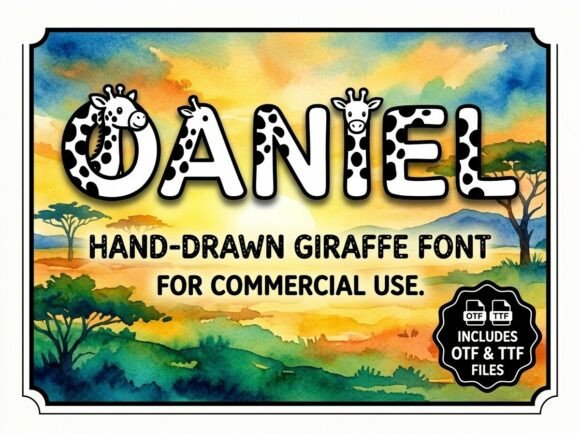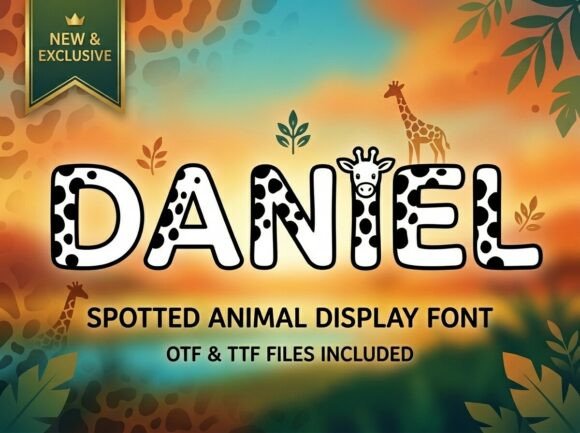
Introducing Daniel Font: A Stunning Decorative Display Font
Are you tired of using the same old fonts for your designs? Do you want to add a touch of uniqueness and creativity to your projects? Look no further than Daniel Font, a breathtaking decorative display font that’s designed to be the center of attention. With its artistic elements and strong visual personality, this font is perfect for creators who want to break away from the ordinary and make a statement.
What Makes Daniel Font Special?
Daniel Font is a versatile font that’s specifically designed for bold headlines, artistic logos, and creative packaging. Its unique artistic elements and strong visual personality make it perfect for projects that require a professional and polished finish. Whether you’re a designer, craftsperson, or DIY enthusiast, this font is sure to elevate your work and make it stand out from the crowd.
Key Features of Daniel Font
- Unique Artistic Elements: Daniel Font features unique artistic elements that set it apart from other fonts. Each letter is carefully crafted to make a statement and add a touch of creativity to your designs.
- Strong Visual Personality: This font has a strong visual personality that’s perfect for bold headlines, artistic logos, and creative packaging.
- Versatile: Daniel Font is versatile enough to be used for a variety of projects, from professional designs to DIY crafts.
- Professional and Polished Finish: This font maintains a professional and polished finish, making it perfect for projects that require a high level of sophistication.
Who is Daniel Font For?
Daniel Font is perfect for:
- Designers: Graphic designers, branding experts, and advertising professionals who want to add a touch of creativity to their designs.
- Crafters: DIY enthusiasts, craftspersons, and makers who want to add a professional and polished finish to their projects.
- Entrepreneurs: Small business owners and entrepreneurs who want to create a strong brand identity and stand out from the competition.
How to Use Daniel Font
Daniel Font can be used for a variety of projects, including:
- Headlines and Titles: Use Daniel Font to create bold and eye-catching headlines and titles for your designs.
- Logos and Branding: Use this font to create unique and memorable logos and branding materials.
- Packaging and Labeling: Use Daniel Font to add a touch of creativity and sophistication to your packaging and labeling.
- Signage and Displays: Use this font to create eye-catching signage and displays that grab attention.
Daniel Font is a stunning decorative display font that’s perfect for creators who want to break away from the ordinary and make a statement. With its unique artistic elements and strong visual personality, this font is versatile enough for bold headlines, artistic logos, and creative packaging, while maintaining a professional and polished finish. Whether you’re a designer, craftsperson, or DIY enthusiast, Daniel Font is sure to elevate your work and make it stand out from the crowd.